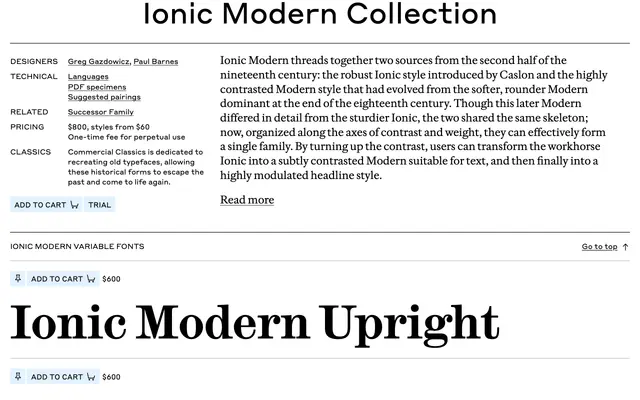
Ionic Modern
Ionic Modern specimen from Commercial Type
A serif system that travels from a sturdy Ionic text face to a highly modulated Modern headline, organised along axes of contrast and weight.
A serif system from Commercial Type that joins two nineteenth-century strands, Caslon's robust Ionic and the high-contrast Modern that descended from softer eighteenth-century Moderns. Three optical sizes, Text, Deck and Poster, span six weights from Thin to Extrabold with matching italics. Turning the contrast up takes the workhorse Ionic into subtly contrasted Modern for body copy and finally to a highly modulated headline cut, making it useful across long-form editorial, mastheads and posters.
Commercial Type describe Ionic Modern as a thread between the robust mid-nineteenth-century Ionic introduced by Caslon and the highly contrasted Modern style that evolved from softer eighteenth-century Moderns, arranged along axes of contrast and weight across Text, Deck and Poster sizes.